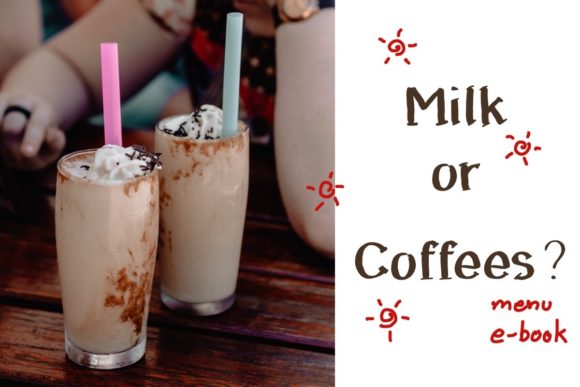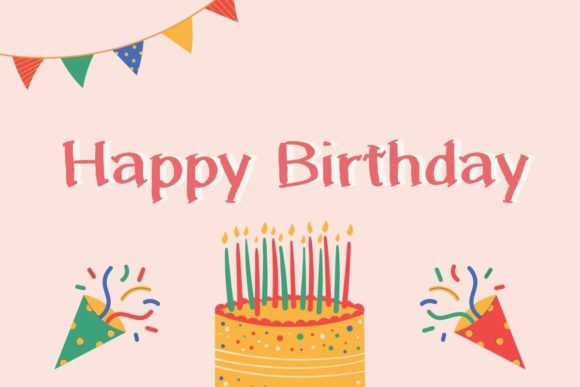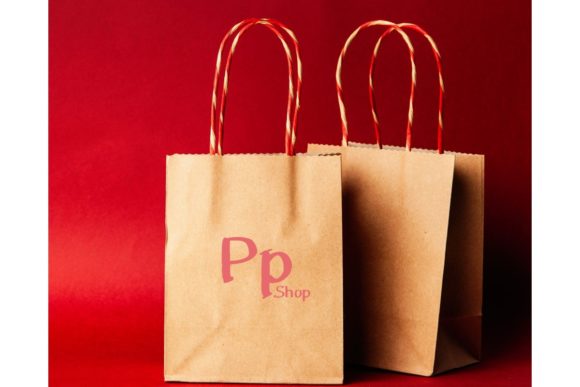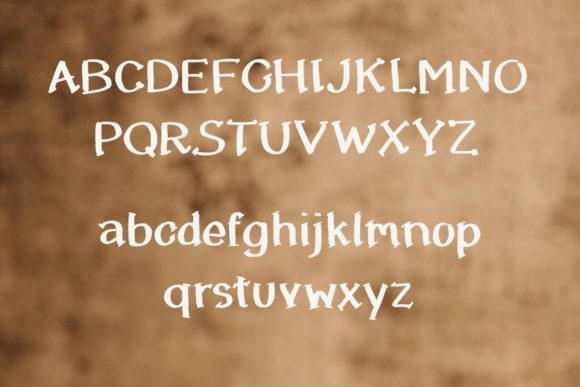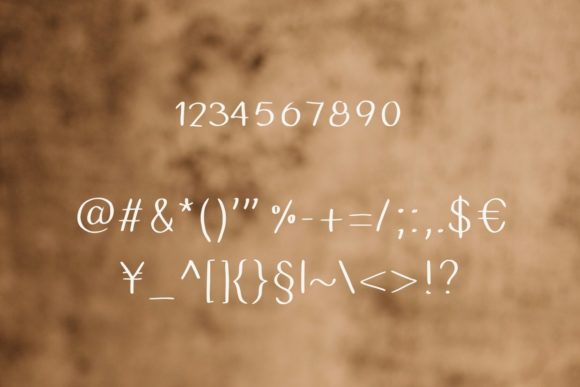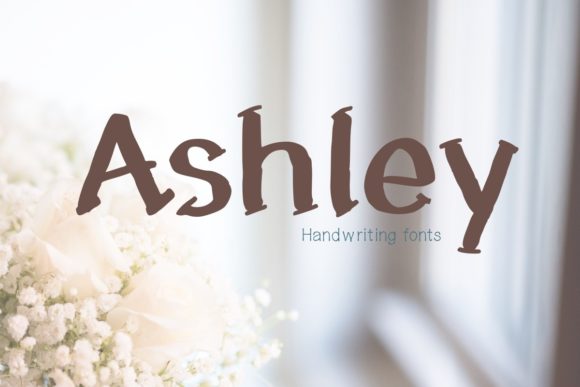
The Designer’s Delight: Ashley Font
I still remember the time I was working on a project for a client who wanted a fun and quirky vibe. I had all the design elements in place, but something was missing. It wasn’t until I stumbled upon the Ashley font that the entire project came together. The cool and fun display font added a touch of personality to the design that I just couldn’t replicate with any other font. If you’re a designer, crafter, or creative hobbyist looking to elevate your projects, you’re in luck because today we’re diving into the wonderful world of Ashley font.
A Honest Review: The Good and the Quirky
So, what makes Ashley font so special? Let’s take a closer look.
• ✨ Versatility: Ashley font can easily be matched to an incredibly large set of projects. Whether you’re working on a logo, a poster, or a social media graphic, this font fits right in.
• ✅ Legibility: Even at smaller sizes, Ashley font remains clear and easy to read, making it perfect for a wide range of applications.
• 💥 Personality: This font has a unique charm that adds a touch of whimsy to any design.
While Ashley font is an excellent choice for many projects, there are a few things to keep in mind:
• 🤔 Limited use in body text: Due to its display nature, Ashley font might not be the best choice for longer blocks of text. It’s perfect for headings, titles, and short phrases, but may not be as readable for body text.
• ⚠️ Occasional kerning issues: As with any font, there may be some kerning issues, especially when using certain character combinations. Be sure to review your text carefully to ensure proper spacing.
Exploring Alternatives: Similar Fonts to Ashley
While Ashley font is undoubtedly unique, there are other fonts that share similar qualities. Here are a few alternatives you might consider:
• Kawaii: A sweet and playful font perfect for designs that require a touch of cuteness.
• Great Vibes: A fun, handwritten font with a similar energetic feel to Ashley.
• Pacifico: A beautiful, modern script font that adds a touch of elegance to any design.
• Rock Salt: A fun, casual font with a similar laid-back vibe to Ashley.
The Story Behind Ashley Font
The creator of Ashley font, [fictional name], was inspired by the eclectic mix of street art and typography found in urban landscapes. With a passion for creating fonts that bring joy and personality to designs, [fictional name] poured their heart and soul into crafting Ashley font. The result is a font that’s both fun and functional, perfect for designers looking to add a touch of whimsy to their work.
Q: What type of projects is Ashley font best suited for?
A: Ashley font is perfect for projects that require a fun and playful touch, such as social media graphics, posters, logos, and more.
Q: Is Ashley font available in different weights or styles?
A: Currently, Ashley font is available in a single weight. However, the creator may release additional weights or styles in the future.